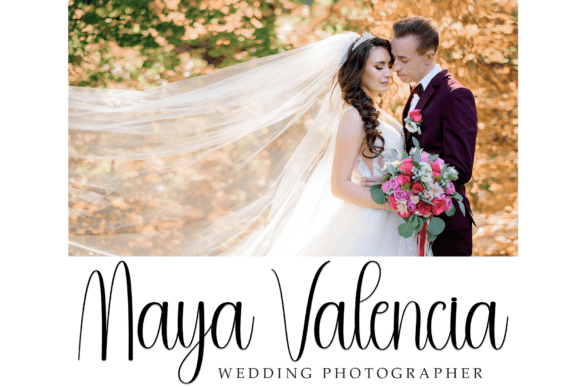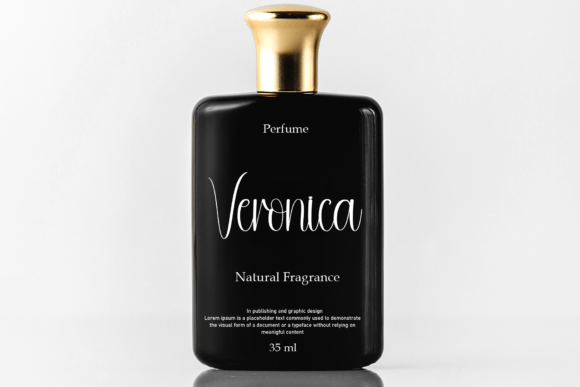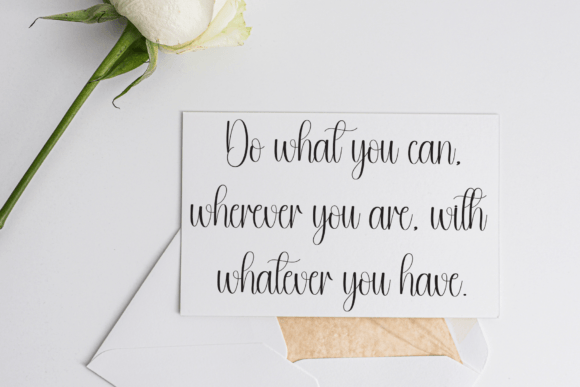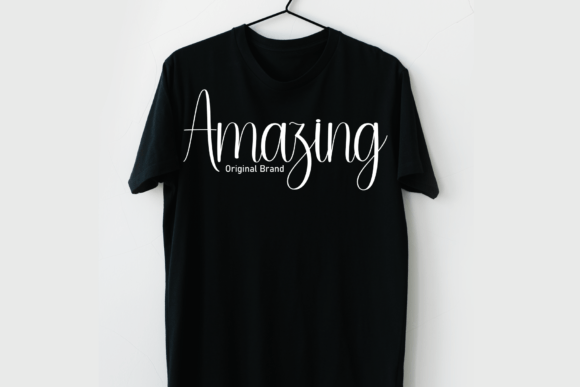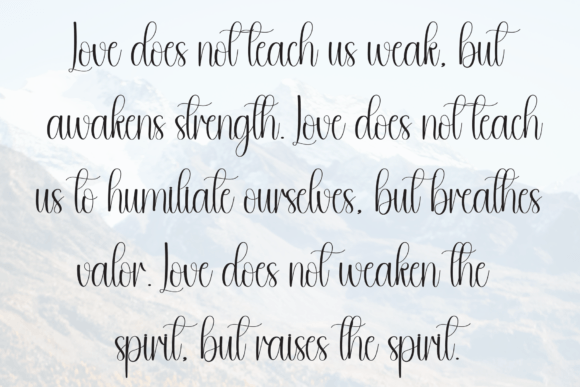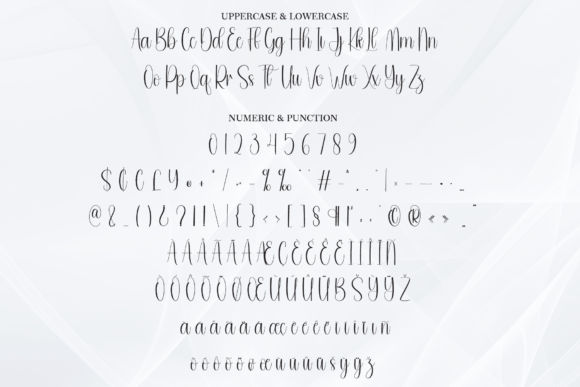
Discover the Charm of Aright Font: A Sweet and Friendly Handwritten Delight
Are you on the hunt for a font that adds a personal touch to your designs? Look no further than Aright Font, a sweet and friendly handwritten font that’s perfect for creating warm and inviting visuals. In this article, we’ll dive into the world of Aright Font, exploring its features, benefits, and uses, as well as provide tips and inspiration for designers and crafters.
What is Aright Font?
Aright Font is a beautiful, handcrafted font that’s designed to bring a sense of freshness and casual elegance to your designs. With its smooth, flowing lines and playful curves, Aright Font is ideal for creating wedding invitations, greeting cards, and other designs that require a personal touch.
Key Features of Aright Font
- Handwritten style: Aright Font boasts a genuine handwritten look that’s both sweet and sophisticated.
- Fresh and casual: This font is perfect for designs that require a relaxed, informal feel.
- Highly legible: Aright Font is easy to read, making it suitable for body text and headings.
- Versatile: Use Aright Font for a wide range of design projects, from wedding invitations to social media graphics.
Benefits of Using Aright Font
So, why choose Aright Font for your design projects? Here are just a few benefits:
- Adds a personal touch: Aright Font’s handwritten style adds a warm, personal touch to your designs.
- Evokes emotions: The sweet and friendly nature of Aright Font can evoke feelings of joy, love, and connection.
- Stand out from the crowd: With its unique, handcrafted look, Aright Font can help your designs stand out in a crowded digital landscape.
Using Aright Font in Your Designs
Aright Font is incredibly versatile and can be used in a variety of design projects, including:
- Wedding invitations: Add a touch of romance and elegance to your wedding invitations with Aright Font.
- Greeting cards: Create beautiful, heartfelt greeting cards for special occasions.
- Social media graphics: Use Aright Font to add a personal touch to your social media graphics, such as quotes, announcements, and promotions.
- Branding and packaging: Aright Font can also be used in branding and packaging design to add a touch of warmth and personality.
Tips for Working with Aright Font
Here are some tips for getting the most out of Aright Font:
- Pair with contrasting fonts: Combine Aright Font with bold, geometric fonts for a striking contrast.
- Experiment with colors: Try pairing Aright Font with pastel colors, metallic accents, or rich jewel tones.
- Use for headings and titles: Aright Font is perfect for headings and titles, adding a touch of elegance and sophistication.
Aright Font is a beautiful, sweet, and friendly handwritten font that’s perfect for designers and crafters looking to add a personal touch to their designs. With its fresh and casual style, Aright Font is ideal for a wide range of design projects, from wedding invitations to social media graphics. By incorporating Aright Font into your design toolkit, you’ll be able to create warm, inviting visuals that evoke emotions and connect with your audience.